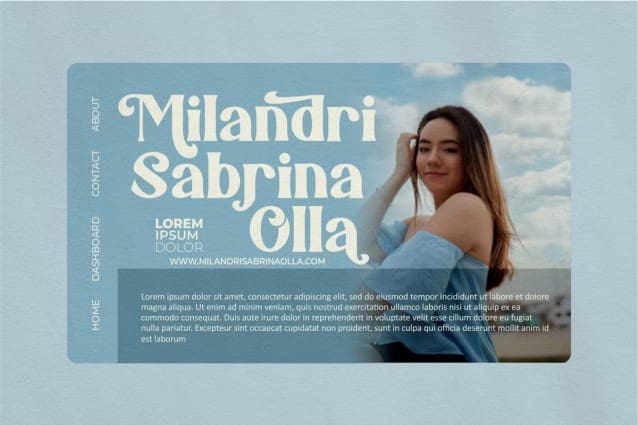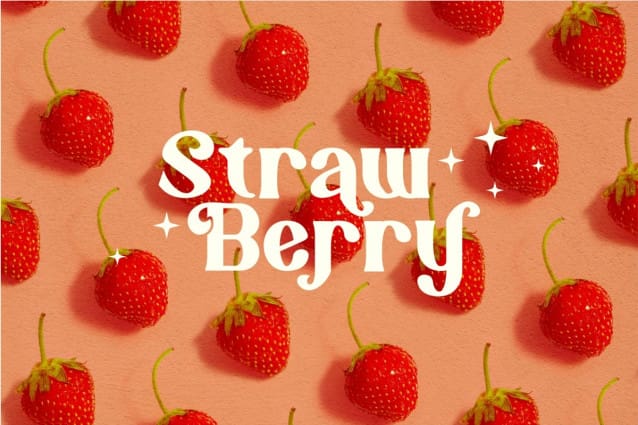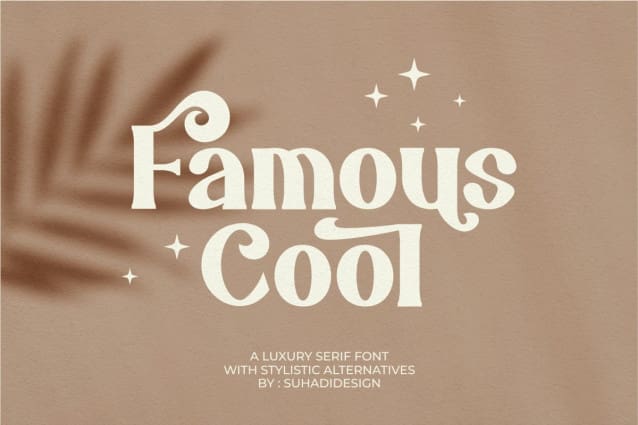
Famous Cool Font
Famous Cool Font is a very beautiful and popular alternate serif font, comes in a modern style hoping to become a market favorite. We keep this font looking elegant, classy, ​​easy to read, stylish, attractive and easy to use. Famous Cool Font is a great choice for beauty brands, magazines, retro designs, newspapers, books, brand names, branding, brands, quotes, album covers and other projects. FamousCool fonts are here to take your designs to another level.